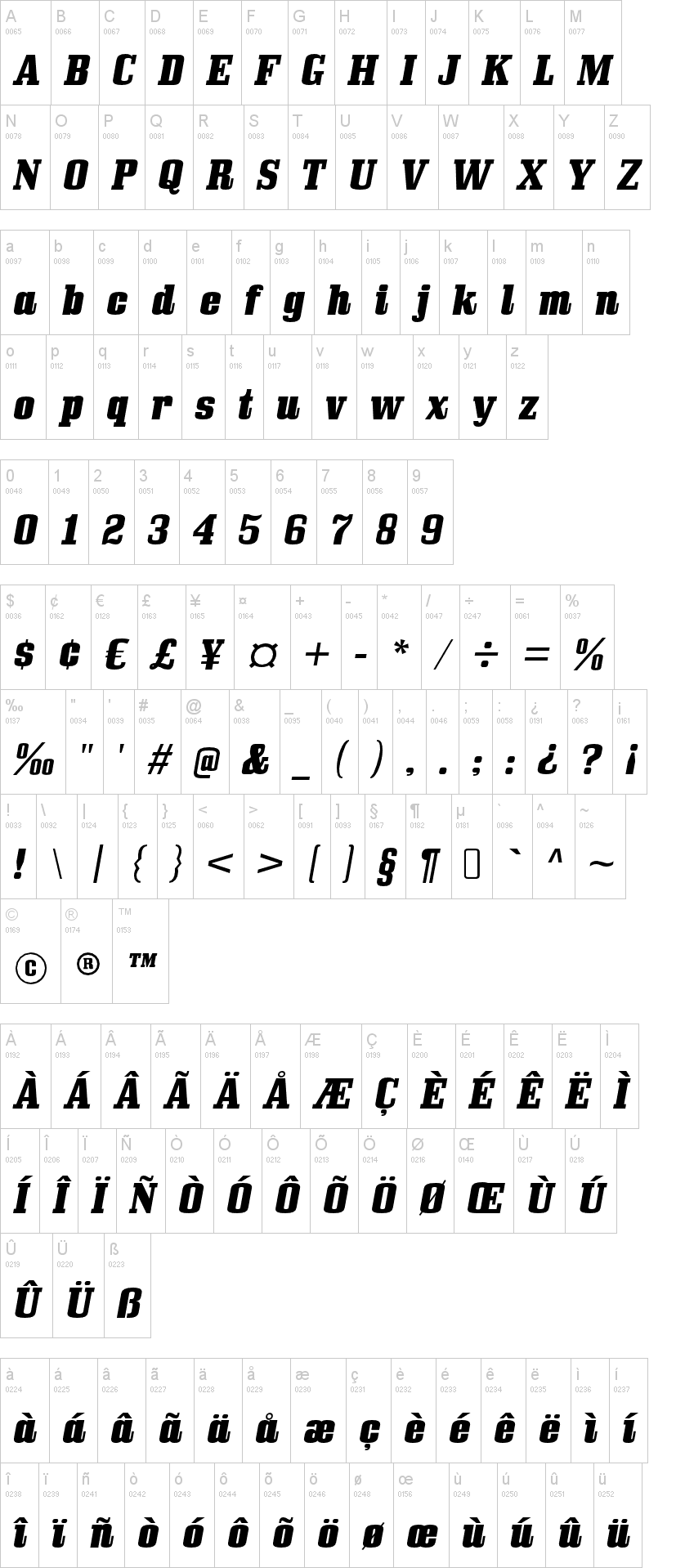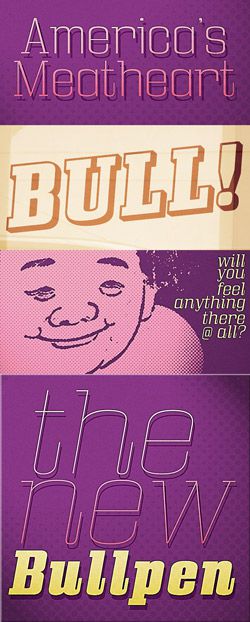
Slab serif fonts are generally macho, but Bullpen is 1,000,000 times more masculine than most slab serif fonts.
Reeking with testosterone, even the lightest weights of Bullpen will make words like pantyhose, skirt and wiener burst forth with brutal manliness.
Bullpen includes a Greek alphabet with is twice as strapping as the regular alphabet. In other words: 2,000,000 times more macho than non Greek slab serif fonts. Fractions and numeric ordinals are included and are also audaciously robust. Don't forget to read the files inside the zip for details. Updated in 2012.
Includes lots of languages, including Greek.